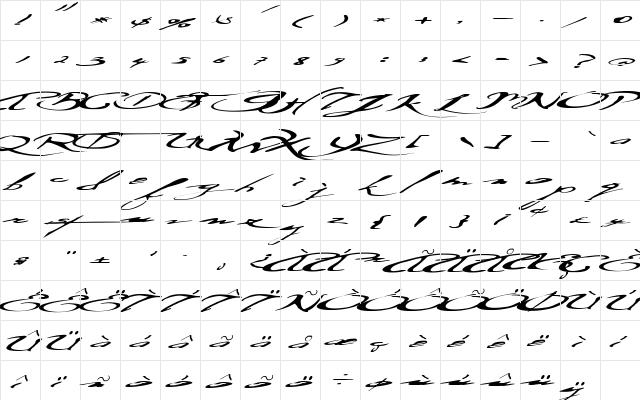
Ersatz Quality Regular
| Foundry | David Kerkhoff |
| Designer | David Kerkhoff |
Design Context for Ersatz Quality Typeface
Ersatz Quality is a composed and adaptable typeface that performs quietly and consistently across a wide range of design contexts.